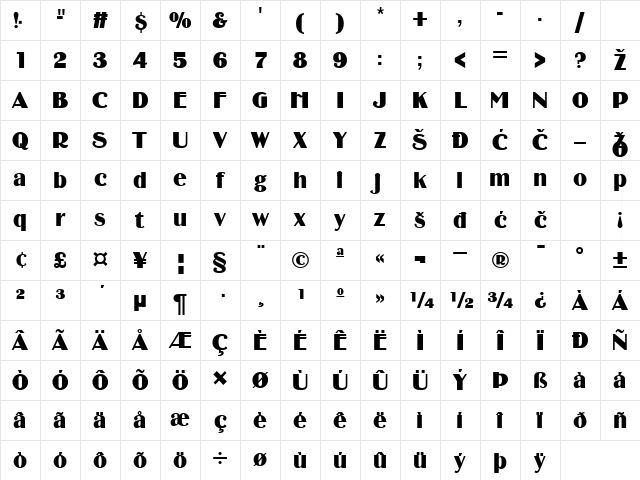
Binner Regular
Design Context for Binner
Binner is a composed and adaptable typeface that performs quietly and consistently across a wide range of design contexts.